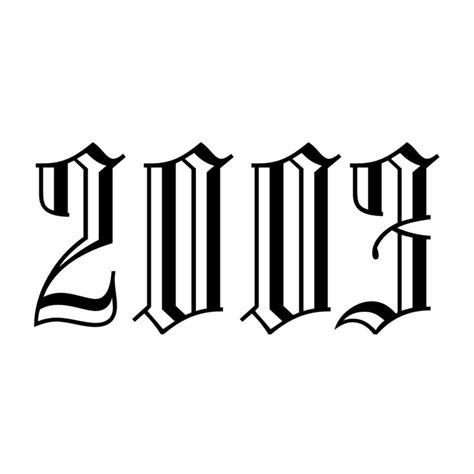
2003 Tattoo Font. Picking a font for your next tattoo is a very important decision. Web the most popular fonts for tattoos are script fonts, which usually look personal and unique, such as calligraphy and.